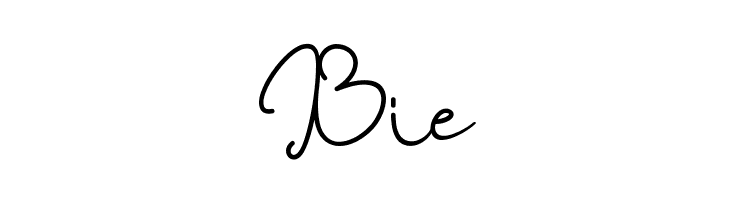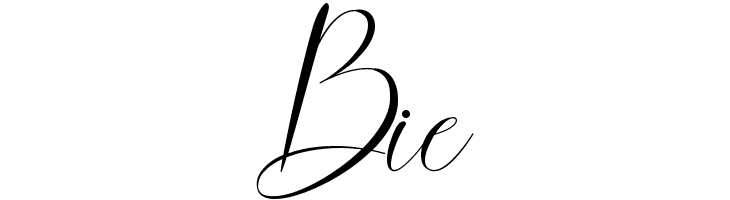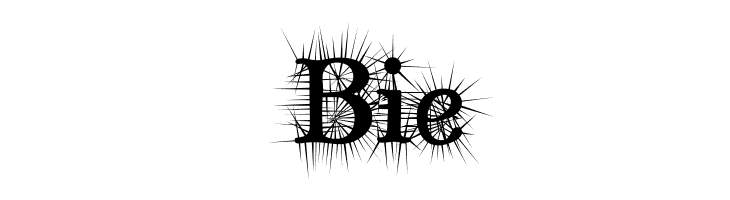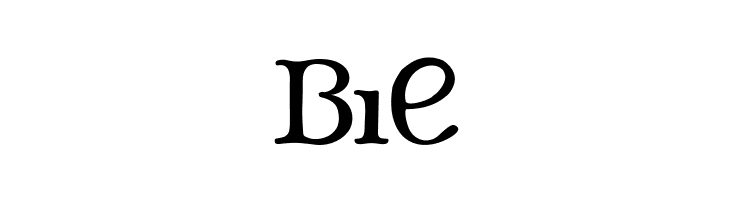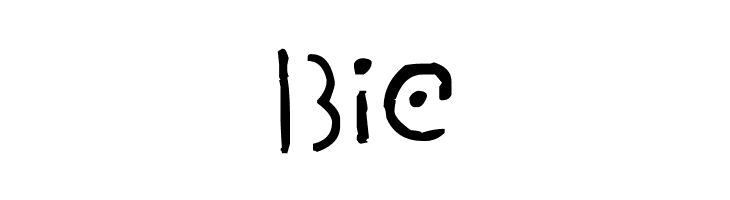
A playful and elegant handwritten script font with flowing, connected letters.
A graceful script font with flowing, interconnected letters and a sophisticated style.
A playful, extraterrestrial-themed font with bold, hand-drawn characters.
A classic serif font with elegant curves and a vintage touch.
A classic serif typeface with elegant flared serifs and balanced proportions.
A decorative font with a blend of modern and vintage styles, featuring playful serifs and whimsical letterforms.
A classic serif font with moderate contrast and elegant serifs.
A bold, high-contrast serif font with elegant curves and a modern twist.
A bold, decorative font with spiky, explosive embellishments.